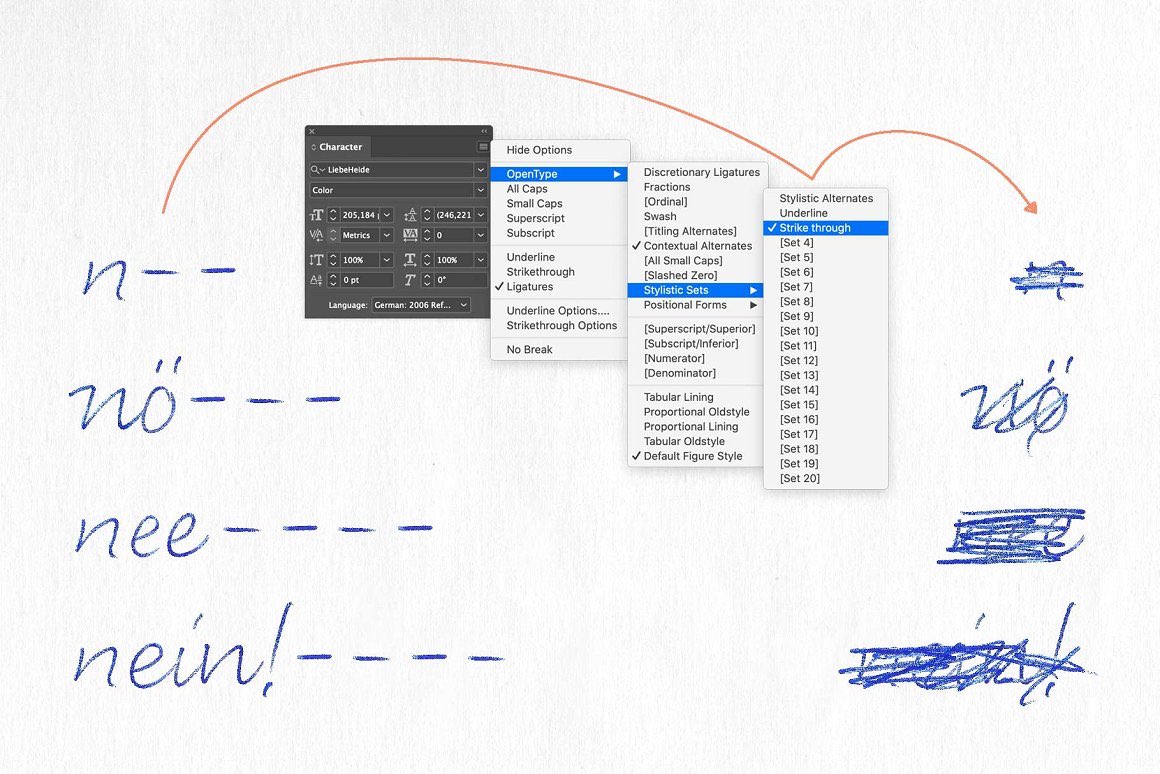
Fonts SVG PNG EPS DXF JPG AI Vector Qoutes File Color Font Liebeheide Best Fonts. Opentype magic and a color font, lovely work. Typemates released kaius pro designed by lisa f. If u write li{color:white} then u just change the list point icon not text because there are anchors in them so u. In adobe's creative cloud apps and all native mac os apps like pages, numbers, or keynote. Liebeheide color font was based on real ballpoint pen letterings, which ulrike rausch digitized in high resolution. .release] liebefonts released liebeheide‚ a handwriting font with color font technology. A combination of opentype and color font technology makes this typographic miracle possible. Liebeheide color font works in all professional design programs, e. Liebeheide is a digital script font that authentically reproduces the writing of a ballpoint pen. Liebeheide at a glance / requirements • a color font based on bitmap images • the color of the font cannot be changed in text editors, but adjust развернуть. Basically i want to change the color of all the li tags to white from the code shown below. Liebeheide at a glance / requirements • a color font based on bitmap images • the color of the font cannot be changed in text editors, but adjusted with photoshop filters • only supported by adobe's. Liebefonts released liebeheide‚ a handwriting font with color font technology. And those substitutions are amazing! The color of words set in liebeheide.
Brazzaville Welcome To Creative Text Handwritten Font With Purple Pink Colors Design Vector Illustration Stock Vector Image Art Alamy. Typemates released kaius pro designed by lisa f. .release] liebefonts released liebeheide‚ a handwriting font with color font technology. Liebeheide color font works in all professional design programs, e. Liebefonts released liebeheide‚ a handwriting font with color font technology. And those substitutions are amazing! If u write li{color:white} then u just change the list point icon not text because there are anchors in them so u. A combination of opentype and color font technology makes this typographic miracle possible. Liebeheide is a digital script font that authentically reproduces the writing of a ballpoint pen. Opentype magic and a color font, lovely work. The color of words set in liebeheide. Liebeheide at a glance / requirements • a color font based on bitmap images • the color of the font cannot be changed in text editors, but adjusted with photoshop filters • only supported by adobe's. In adobe's creative cloud apps and all native mac os apps like pages, numbers, or keynote. Liebeheide color font was based on real ballpoint pen letterings, which ulrike rausch digitized in high resolution. Liebeheide at a glance / requirements • a color font based on bitmap images • the color of the font cannot be changed in text editors, but adjust развернуть. Basically i want to change the color of all the li tags to white from the code shown below.
Typemates released kaius pro designed by lisa f. A combination of opentype and color font technology makes this typographic miracle possible. With the introduction of html5, the proper way to configure web page fonts is to use cascading style sheets. Liebeheide is a digital script font that authentically reproduces the writing of a ballpoint pen. Liebeheide at a glance / requirements • a color font based on bitmap images • the color of the font cannot be changed in text editors, but adjusted with photoshop filters • only supported by adobe's. Liebeheide color font was based on real ballpoint pen letterings, which ulrike rausch digitized in high resolution. 1001 free fonts is the home of free fonts since 1998.
Kreativ Font Curated Typography And Fonts Discovery Service. In adobe's creative cloud apps and all native mac os apps like pages, numbers, or keynote. The color of words set in liebeheide. And those substitutions are amazing! Liebeheide color font was based on real ballpoint pen letterings, which ulrike rausch digitized in high resolution. Liebeheide color font works in all professional design programs, e. Liebeheide at a glance / requirements • a color font based on bitmap images • the color of the font cannot be changed in text editors, but adjust развернуть. Opentype magic and a color font, lovely work. A combination of opentype and color font technology makes this typographic miracle possible. If u write li{color:white} then u just change the list point icon not text because there are anchors in them so u. Basically i want to change the color of all the li tags to white from the code shown below. Liebeheide at a glance / requirements • a color font based on bitmap images • the color of the font cannot be changed in text editors, but adjusted with photoshop filters • only supported by adobe's. Liebefonts released liebeheide‚ a handwriting font with color font technology. .release] liebefonts released liebeheide‚ a handwriting font with color font technology. Liebeheide is a digital script font that authentically reproduces the writing of a ballpoint pen. Typemates released kaius pro designed by lisa f.
Basically i want to change the color of all the li tags to white from the code shown below. Liebeheide at a glance / requirements • a color font based on bitmap images • the color of the font cannot be changed in text editors, but adjusted with photoshop filters • only supported by adobe's. Liebefonts released liebeheide‚ a handwriting font with color font technology. It features a varying baseline, smooth lines, gorgeous glyphs and stunning alternates. Liebeheide color font works in all professional design programs, e. Archive of freely downloadable fonts. The complete mac font editor for pros & designers alike. In adobe's creative cloud apps and all native mac os apps like pages, numbers, or keynote. Color & typography tools for web developers and digital designers. Color font liebeheide by liebefonts on @creativemarket.